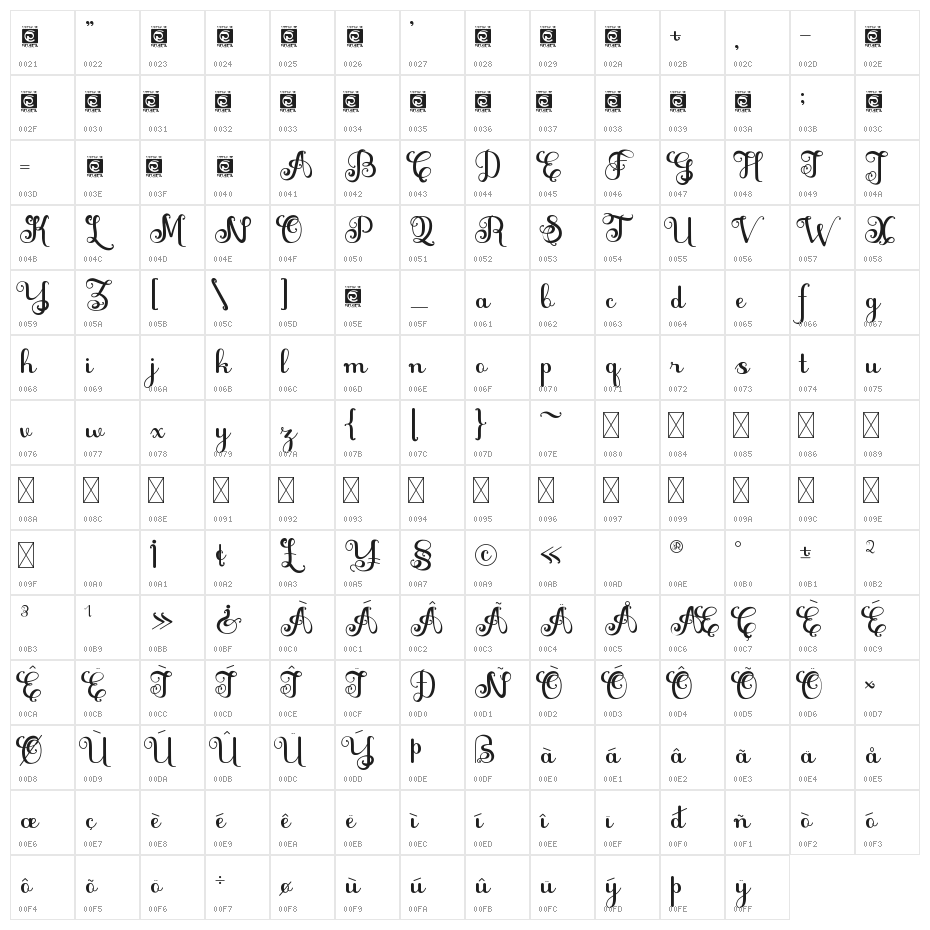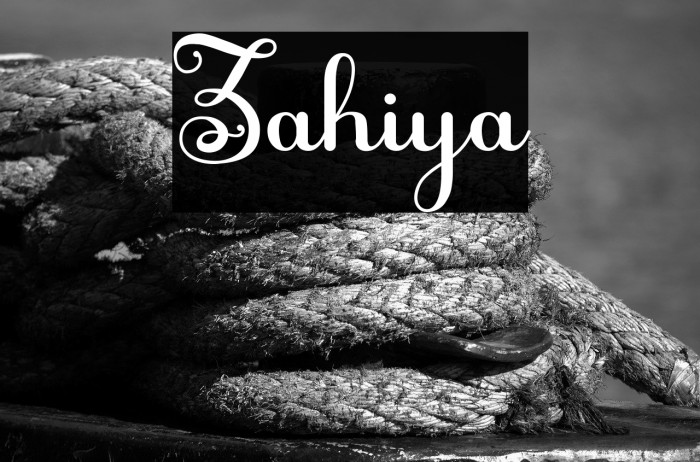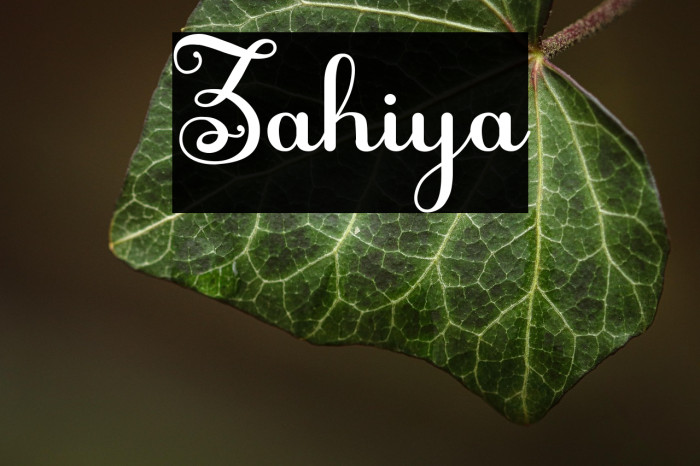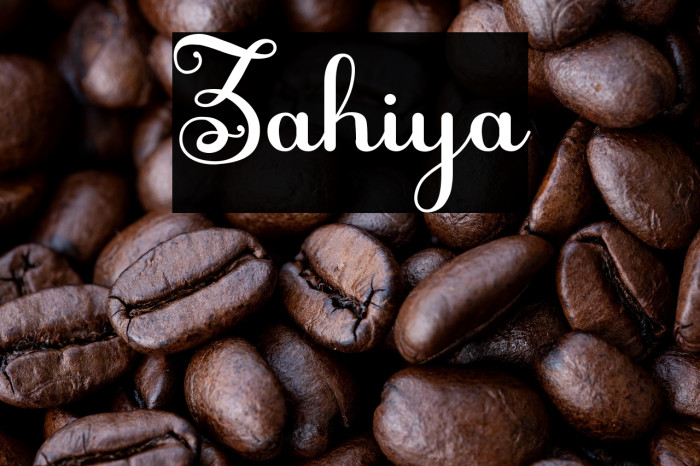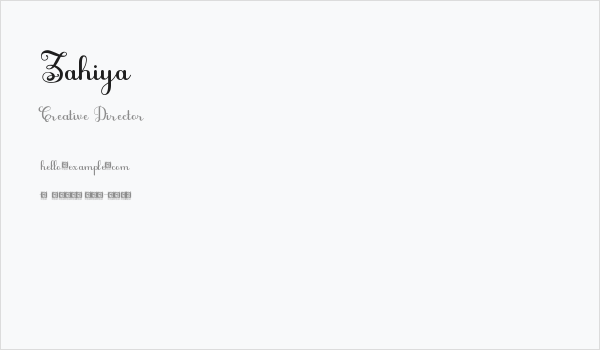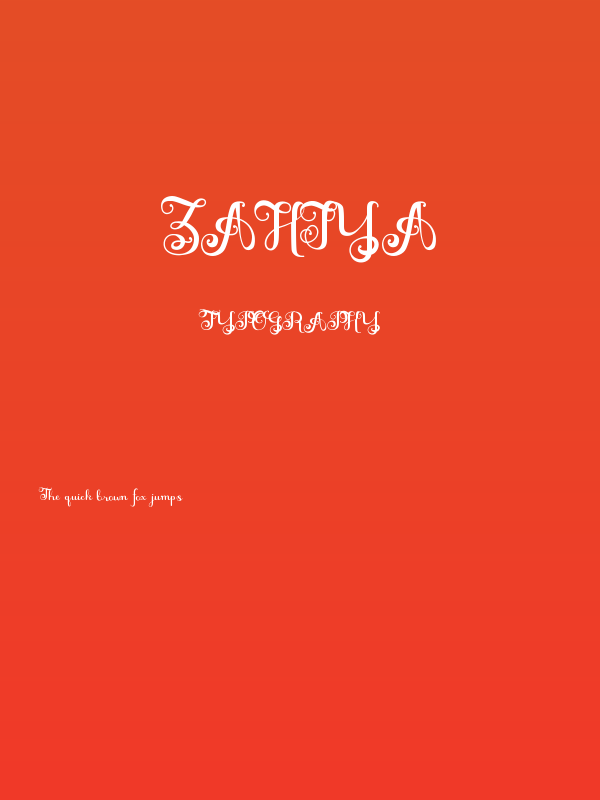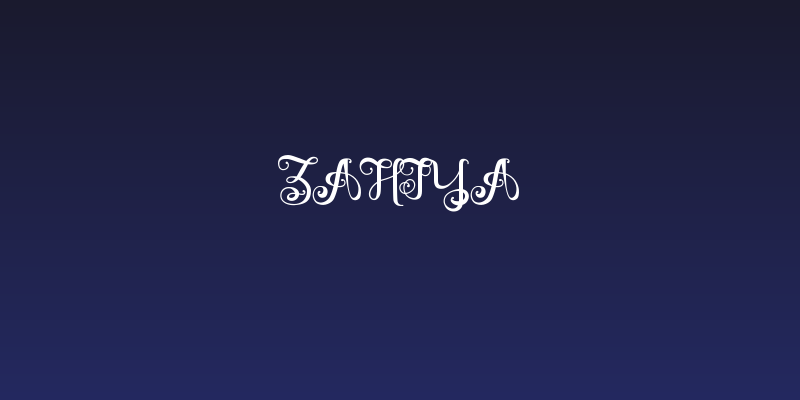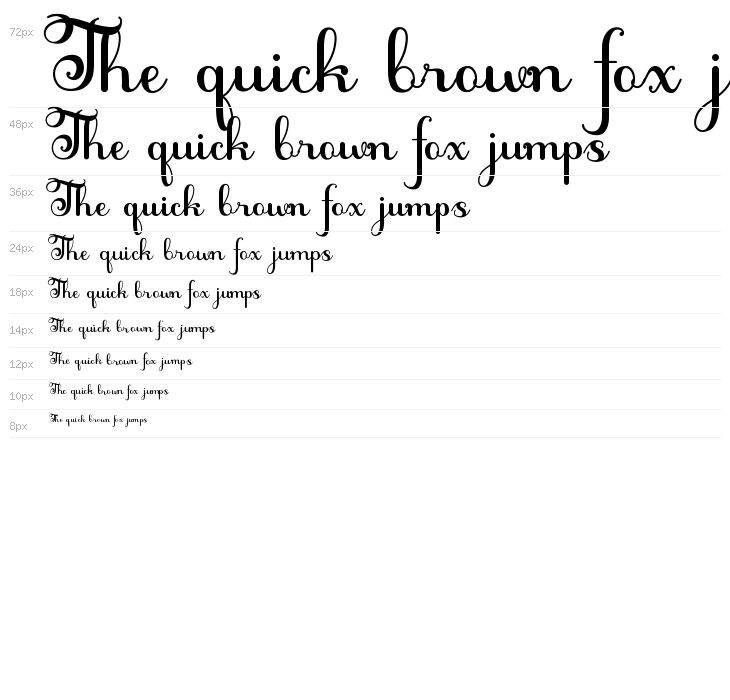
Zahiya Font
Zahiya Description
This font features an elegant and decorative script style with intricate swirls and loops that give it a sophisticated and artistic appearance. The uppercase letters are particularly ornate, with elaborate flourishes that extend beyond the baseline and cap height, creating a sense of movement and fluidity. The lowercase letters maintain a more restrained elegance, with smooth, flowing lines that complement the uppercase characters. The numerals and special characters are designed to match the overall aesthetic, ensuring consistency throughout. This font is ideal for projects that require a touch of elegance and creativity, such as wedding invitations, branding, and decorative headlines.